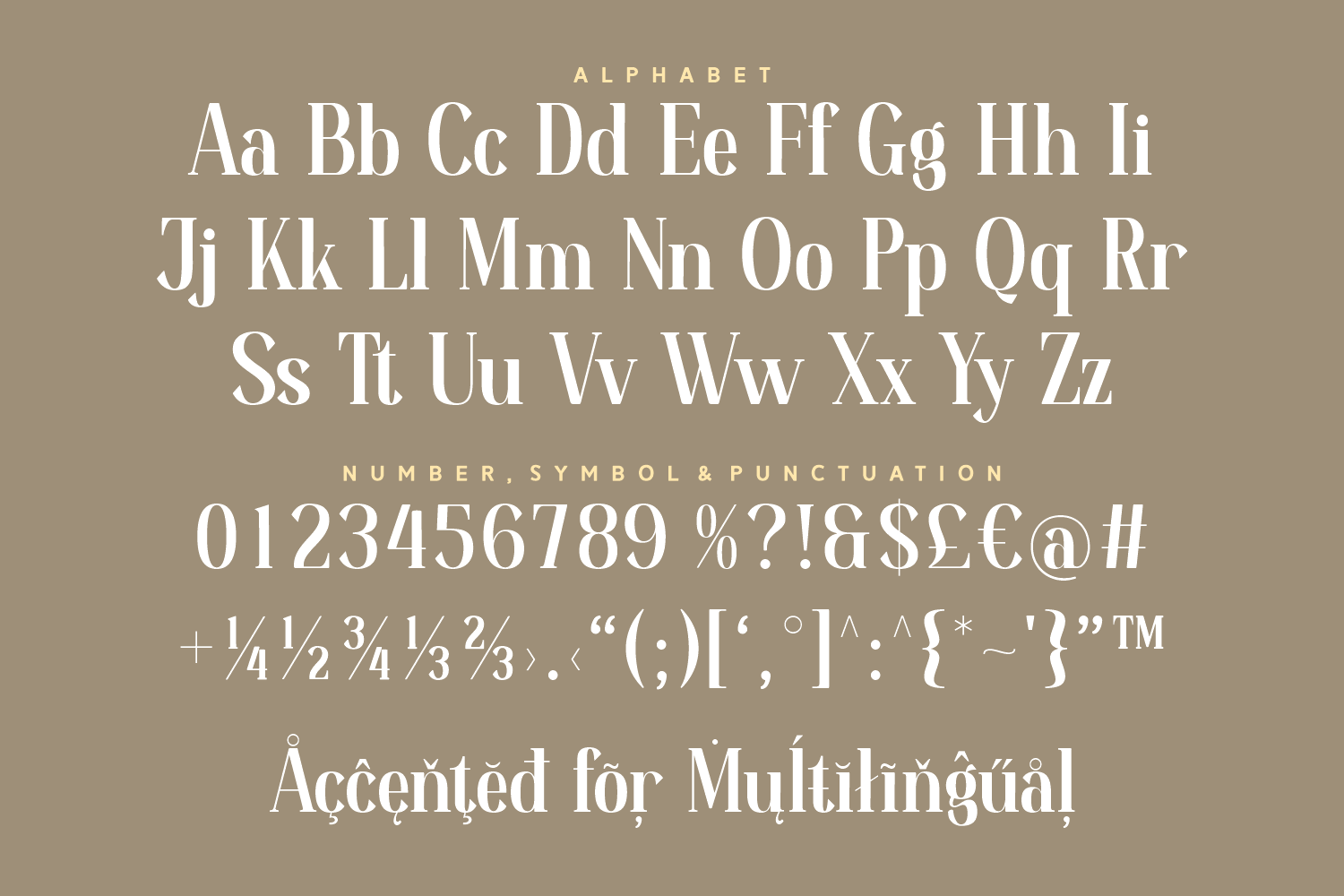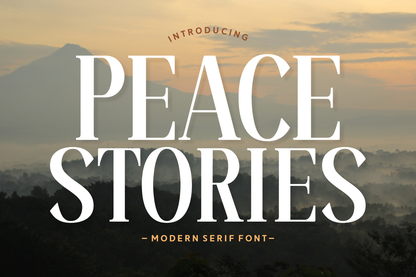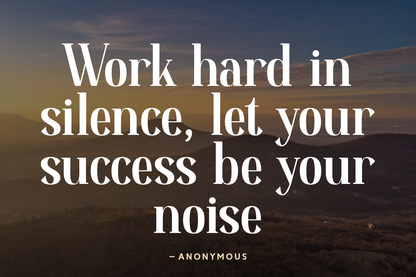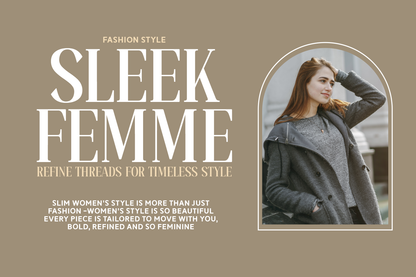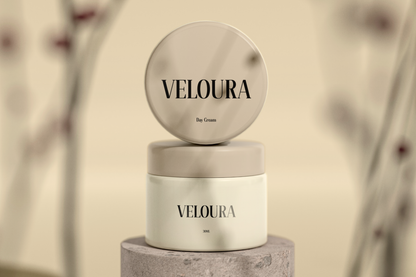
Peace Stories is a bold and elegant modern serif font designed for impactful headlines and storytelling visuals. With its tall x-height, sharp contrast, and strong verticals, it evokes a sense of stability and calm. Ideal for magazine titles, editorial design, branding, and packaging, this font blends tradition with modern sophistication, making your message feel both grounded and inspiring.